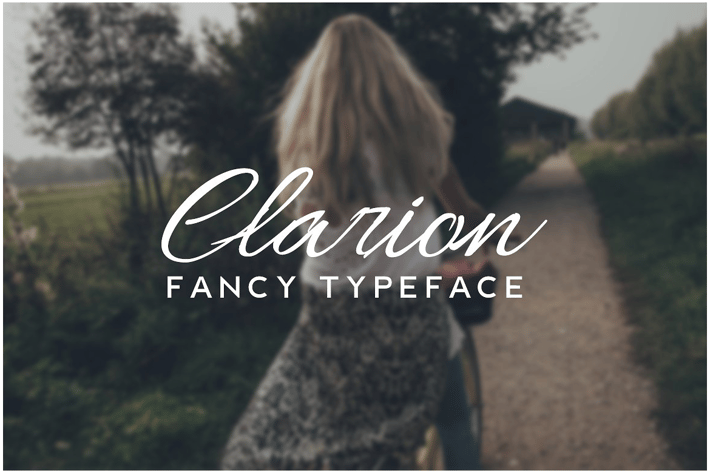
CLARION - Fancy Handwriting / Decorative Typeface
A beautiful fancy handwriting / decorative typeface for everyone. Single weight (regular) font with OTF, TTF and WebFont (all EOT, SVG, WOFF, WOFF2) formats included. Enjoy!
Font produced by Unique Foundry, distributed by Designova.